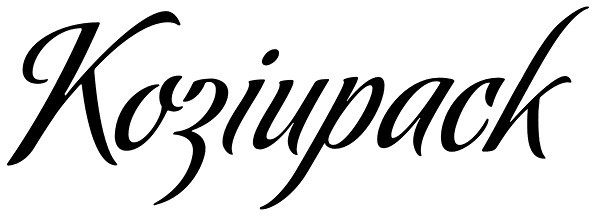
Koziupack
Wild and free as usual, but now with a touch of sharp focus presented in curled ascenders and descenders, swashy care-free caps, and very unique figures. Koziupack is the ideal choice of font for food and drink product labels, signage, magazine...